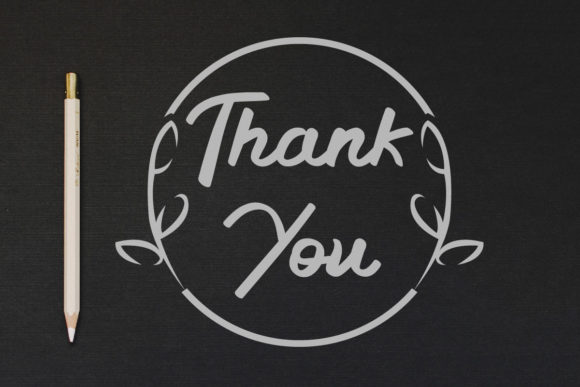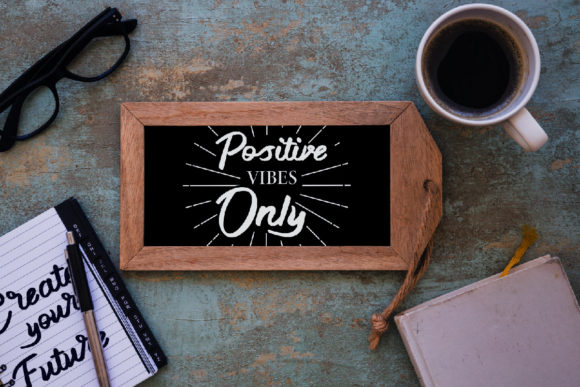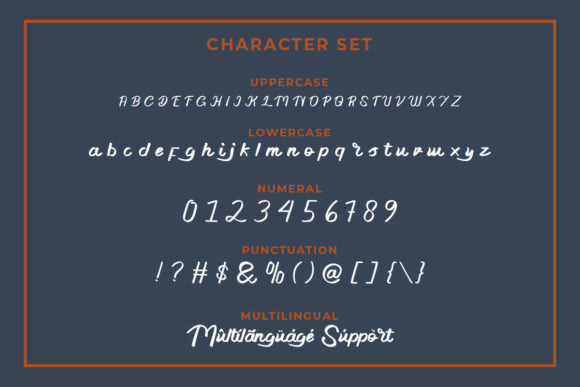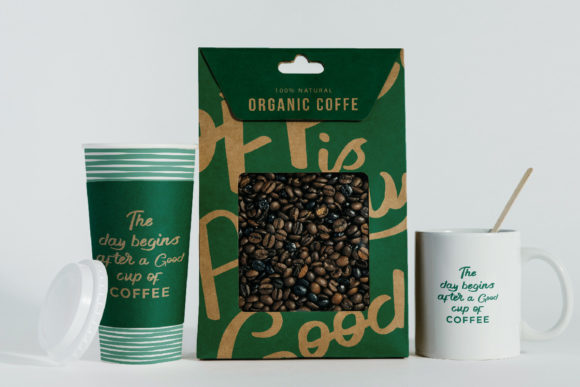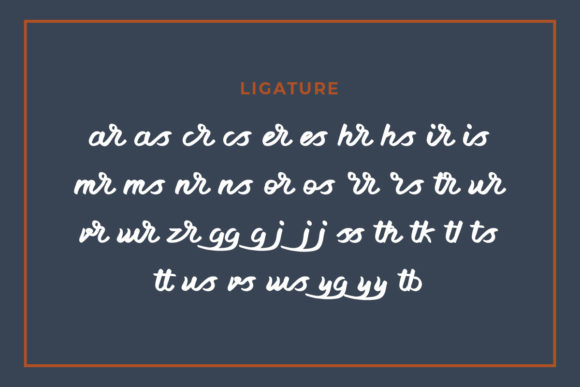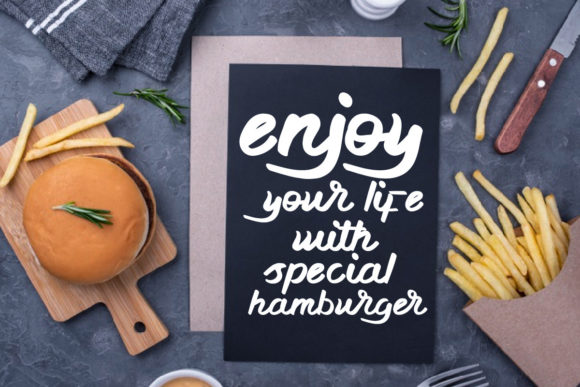
Little Change Font
About Little Change Font
Little Change is a cool, well balanced, brushed handwritten font. This font is PUA encoded which means you can access all of the glyphs and swashes with ease!